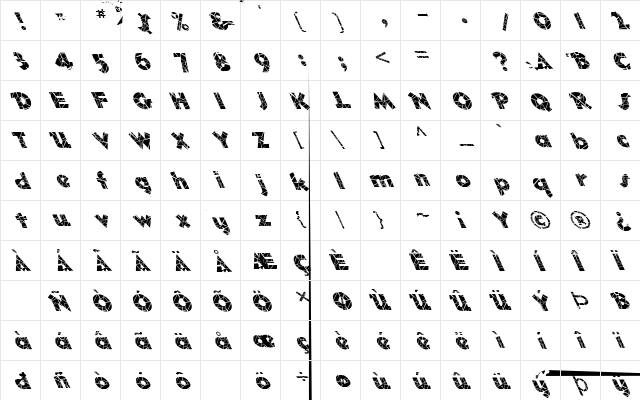
FZ JAZZY 32 CRACKED LEFTY Normal
Design Context for FZ JAZZY 32 CRACKED LEFTY Typeface
FZ JAZZY 32 CRACKED LEFTY is a composed and adaptable typeface that performs quietly and consistently across a wide range of design contexts.